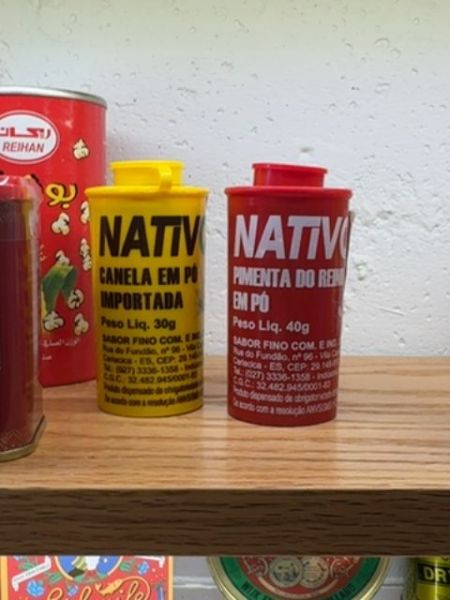
Nativo
Spice product available in different variants such as cinnamon powder and ground black pepper.
Brazil
The typography is bold and sans-serif, giving it a modern and strong presence. The use of all uppercase letters ensures high visibility and readability from a distance, while the contrasting colors help the text stand out against the background.
The packaging features vibrant colors, with a bright yellow for the cinnamon and a rich red for the black pepper. The containers have a cylindrical shape with a simple, clear design that emphasizes the brand name at the top.
- Nativo offers a range of spice products.
- The packaging is designed to be eye-catching and informative.
- It provides essential details like net weight and product type prominently.